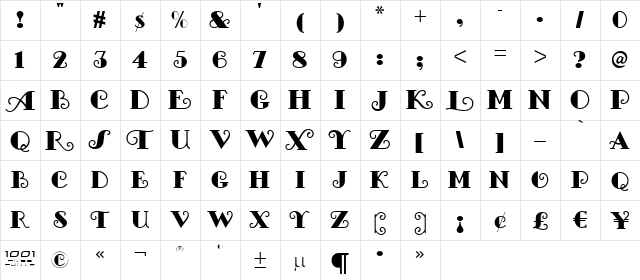
Nostalgia Regular
Design Context for Nostalgia Typeface
Nostalgia is a composed and adaptable typeface that performs quietly and consistently across a wide range of design contexts.